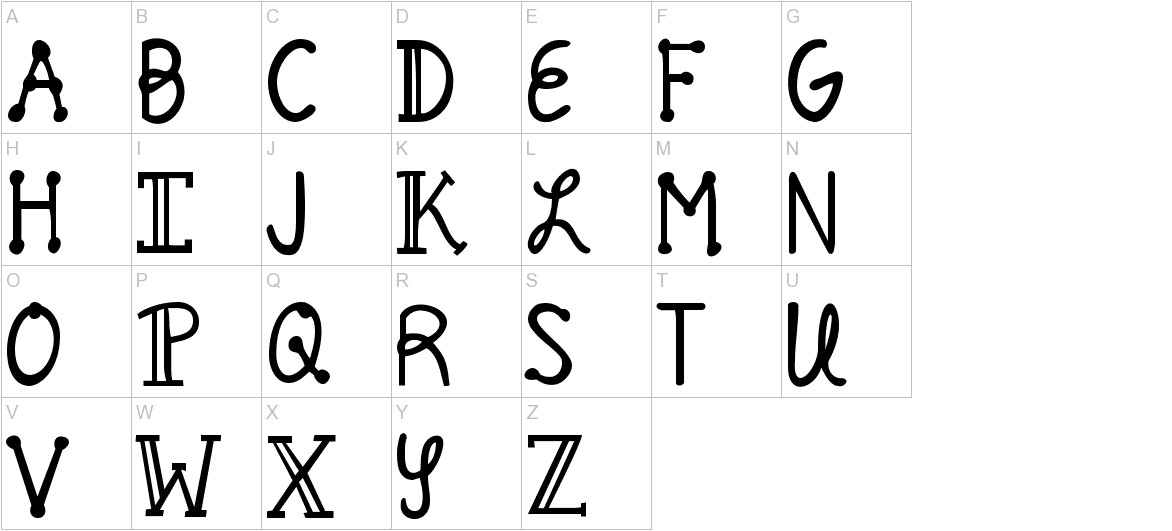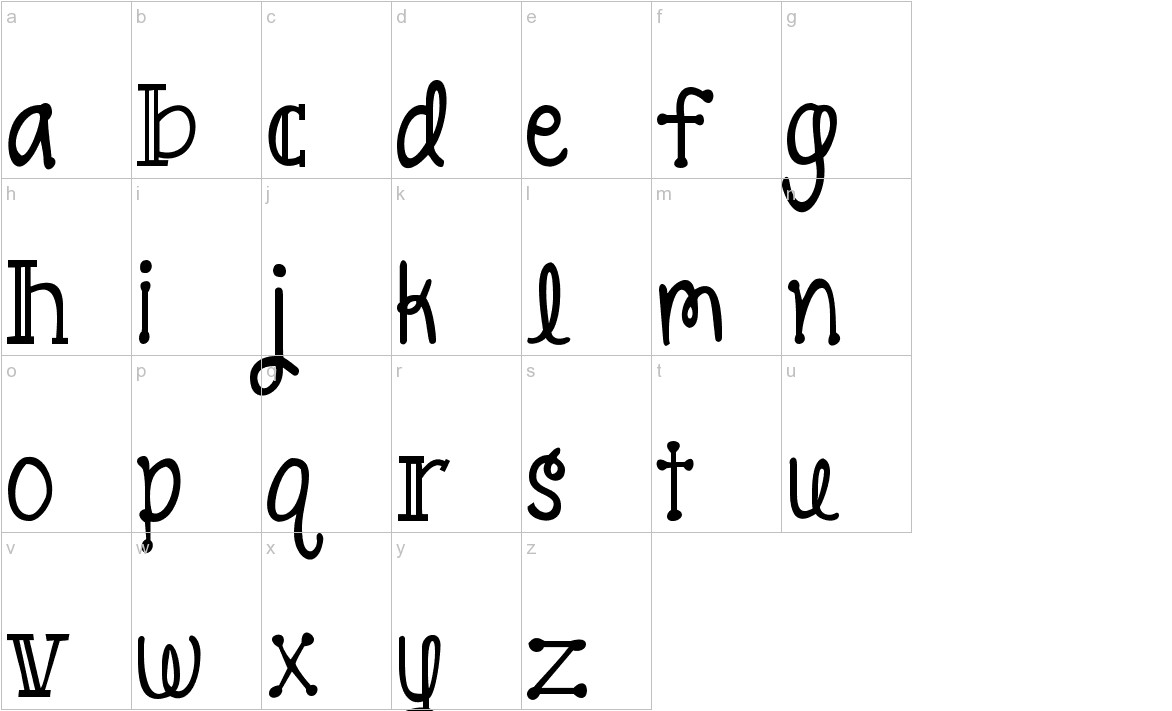
Pineapple Delight Font . It is script font and has 1 style. Moreover, you can embed it to your website with. pineapple delight à € by kimberly geswein. kg pineapple delight is a playful aesthetic font created by kimberly geswein in 2011. free download of pineapple delight font. The pineapple delight font has been downloaded 9,728 times. download free pineapple delight font by kimberly geswein. download pineapple delight font · free for personal use · this font was created by kimberly geswein. This funky typeface has a mix of glyph styles that make up a. 79,329 downloads 1 comment free for personal use. download and install the pineapple delight font by kimberly geswein.
pineapple delight à € by kimberly geswein. 79,329 downloads 1 comment free for personal use. Moreover, you can embed it to your website with. free download of pineapple delight font. download free pineapple delight font by kimberly geswein. kg pineapple delight is a playful aesthetic font created by kimberly geswein in 2011. It is script font and has 1 style. download and install the pineapple delight font by kimberly geswein. download pineapple delight font · free for personal use · this font was created by kimberly geswein. This funky typeface has a mix of glyph styles that make up a.
Pineapple Delight Font The pineapple delight font has been downloaded 9,728 times. download pineapple delight font · free for personal use · this font was created by kimberly geswein. kg pineapple delight is a playful aesthetic font created by kimberly geswein in 2011. download free pineapple delight font by kimberly geswein. pineapple delight à € by kimberly geswein. free download of pineapple delight font. It is script font and has 1 style. 79,329 downloads 1 comment free for personal use. This funky typeface has a mix of glyph styles that make up a. download and install the pineapple delight font by kimberly geswein. Moreover, you can embed it to your website with.
Pineapple Delight font Font Tr Pineapple Delight Font download free pineapple delight font by kimberly geswein. download and install the pineapple delight font by kimberly geswein. kg pineapple delight is a playful aesthetic font created by kimberly geswein in 2011. pineapple delight à € by kimberly geswein. download pineapple delight font · free for personal use · this font was created by kimberly. Pineapple Delight Font.
CheapProFonts Multilingual Fonts Pineapple Delight Pro Pineapple Delight Font pineapple delight à € by kimberly geswein. kg pineapple delight is a playful aesthetic font created by kimberly geswein in 2011. download pineapple delight font · free for personal use · this font was created by kimberly geswein. It is script font and has 1 style. Moreover, you can embed it to your website with. This funky. Pineapple Delight Font.
Pineapple Delight Pro Font Fontspring Pineapple Delight Font It is script font and has 1 style. free download of pineapple delight font. download free pineapple delight font by kimberly geswein. Moreover, you can embed it to your website with. The pineapple delight font has been downloaded 9,728 times. 79,329 downloads 1 comment free for personal use. download and install the pineapple delight font by kimberly. Pineapple Delight Font.
banana pineapple delight Pineapple Delight Font download pineapple delight font · free for personal use · this font was created by kimberly geswein. download free pineapple delight font by kimberly geswein. The pineapple delight font has been downloaded 9,728 times. download and install the pineapple delight font by kimberly geswein. 79,329 downloads 1 comment free for personal use. This funky typeface has a. Pineapple Delight Font.
Pineapple Font Pineapple Delight Font kg pineapple delight is a playful aesthetic font created by kimberly geswein in 2011. 79,329 downloads 1 comment free for personal use. It is script font and has 1 style. free download of pineapple delight font. pineapple delight à € by kimberly geswein. download and install the pineapple delight font by kimberly geswein. Moreover, you can. Pineapple Delight Font.
Pineapple Delight font Font Tr Pineapple Delight Font download free pineapple delight font by kimberly geswein. 79,329 downloads 1 comment free for personal use. download pineapple delight font · free for personal use · this font was created by kimberly geswein. pineapple delight à € by kimberly geswein. The pineapple delight font has been downloaded 9,728 times. It is script font and has 1 style.. Pineapple Delight Font.
Pineapple Delight font by Kimberly Geswein FontRiver Pineapple Delight Font 79,329 downloads 1 comment free for personal use. kg pineapple delight is a playful aesthetic font created by kimberly geswein in 2011. pineapple delight à € by kimberly geswein. download pineapple delight font · free for personal use · this font was created by kimberly geswein. This funky typeface has a mix of glyph styles that make. Pineapple Delight Font.
Pineapple Delight Font download free Pineapple Delight Font The pineapple delight font has been downloaded 9,728 times. download and install the pineapple delight font by kimberly geswein. download pineapple delight font · free for personal use · this font was created by kimberly geswein. free download of pineapple delight font. kg pineapple delight is a playful aesthetic font created by kimberly geswein in 2011.. Pineapple Delight Font.
Pineapple Delight Font Download Pineapple Delight Font Moreover, you can embed it to your website with. This funky typeface has a mix of glyph styles that make up a. kg pineapple delight is a playful aesthetic font created by kimberly geswein in 2011. 79,329 downloads 1 comment free for personal use. pineapple delight à € by kimberly geswein. download pineapple delight font · free. Pineapple Delight Font.